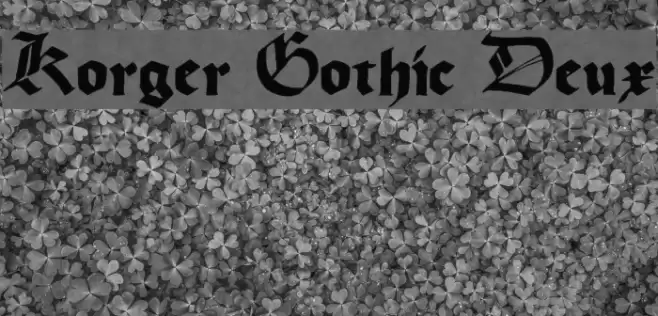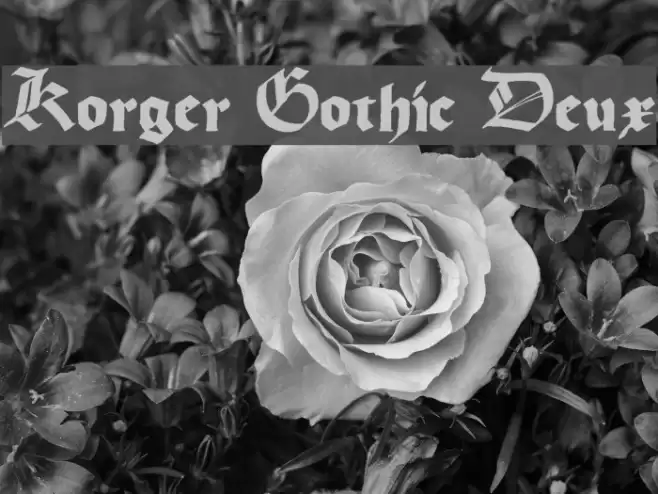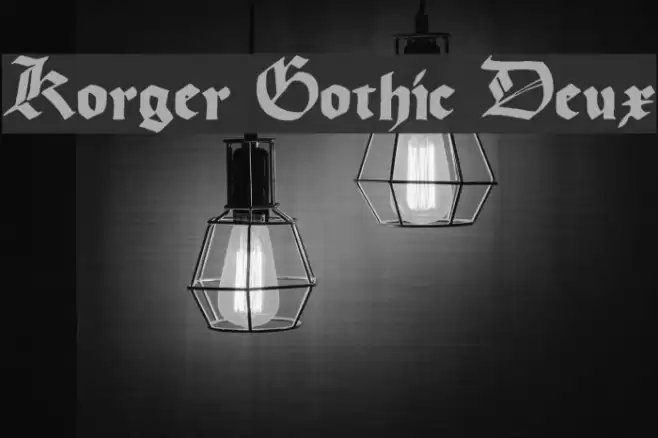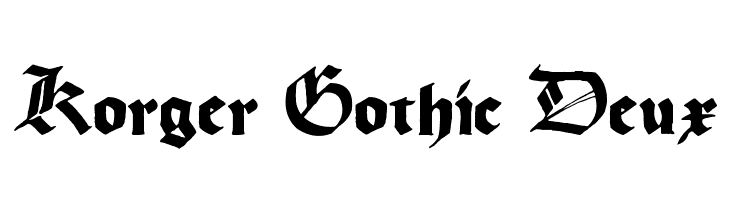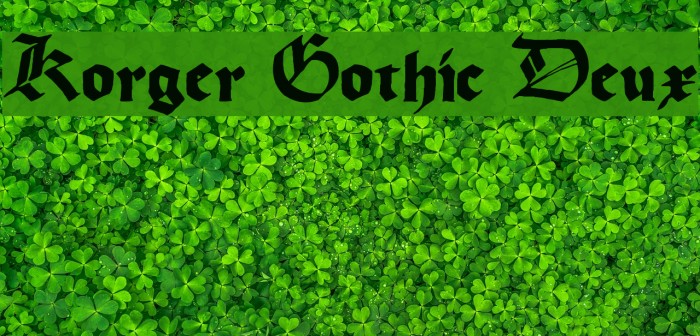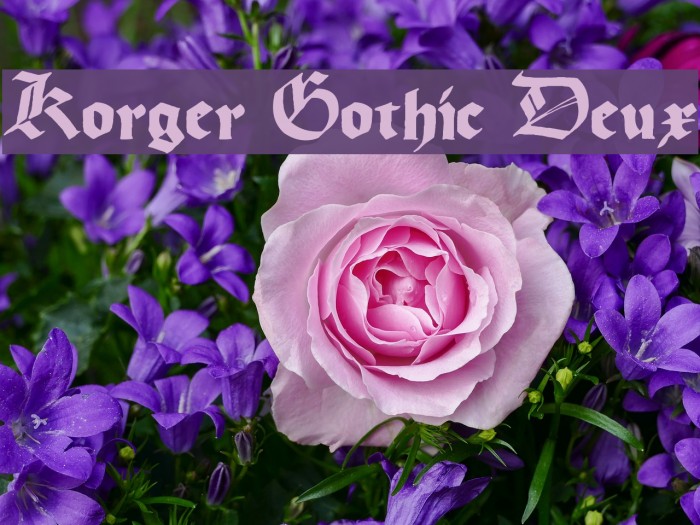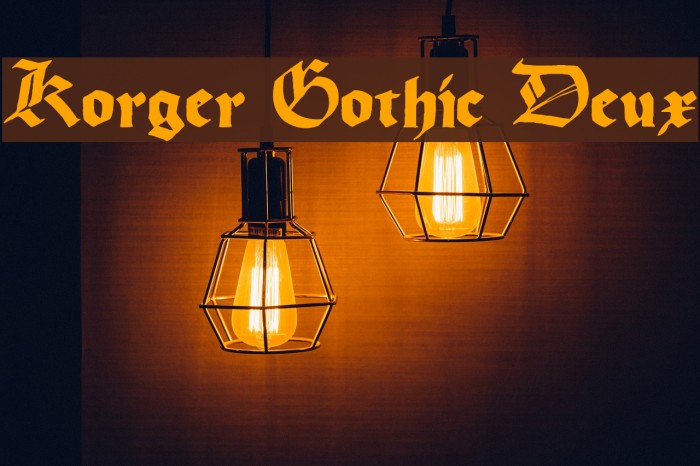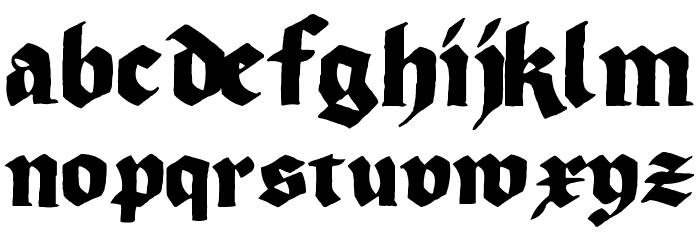
Korger Gothic Deux Font
Korger Gothic Deux Description
This font exhibits a classic blackletter style, characterized by its intricate and angular letterforms. The uppercase letters are ornate, with sharp edges and a medieval aesthetic, while the lowercase letters maintain a bold and robust appearance. The overall design is reminiscent of traditional Gothic script, often used in historical and formal contexts. The font's bold strokes and high contrast between thick and thin lines give it a dramatic and impactful presence, suitable for creating a sense of tradition and authority.
A bold, traditional blackletter font with high contrast and intricate details from Uncategorized fonts.
- Proposed Projects: Ideal for historical documents, certificates, branding for luxury products, or any project requiring a traditional and authoritative look.
- Overall Style: Vintage
- Use Case: Logos, Headlines, Certificates